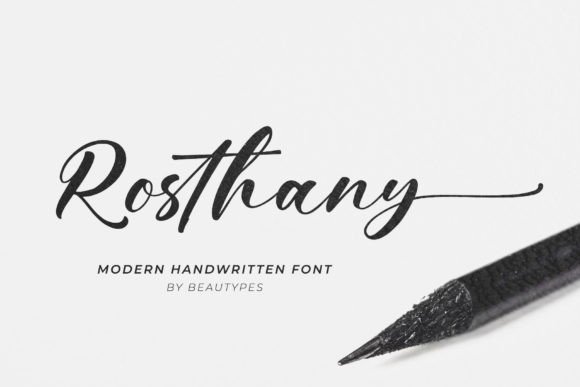
Dive into the enchanting world of Rosthany Font, a captivating handwritten font that breathes life into your creative projects. This elegant script dances across the screen, evoking a sense of authenticity and charm that leaves a lasting impression.
Crafted by the talented Beautypes, Rosthany Font belongs to the script font family, known for its expressive and graceful strokes. With its organic flow and playful personality, this font adds a touch of whimsy and sophistication to any design.
Whether you're working on branding, signature designs, wedding invitations, promotions, or product packaging, Rosthany Font seamlessly adapts to your vision. Its versatility knows no bounds, making it a treasure trove for designers seeking unique and captivating typography.
Experience the joy of adding Rosthany Font's vibrant energy to your web projects. Its innate charm and readability make it an ideal choice for creating impactful headlines, captivating call-to-actions, and engaging content that resonates with your audience.
With Rosthany Font, you'll discover a world of endless possibilities. Its organic handwritten style adds a personal touch to your designs, fostering a connection with your customers. Embrace the beauty of Rosthany Font and watch your creative projects flourish.